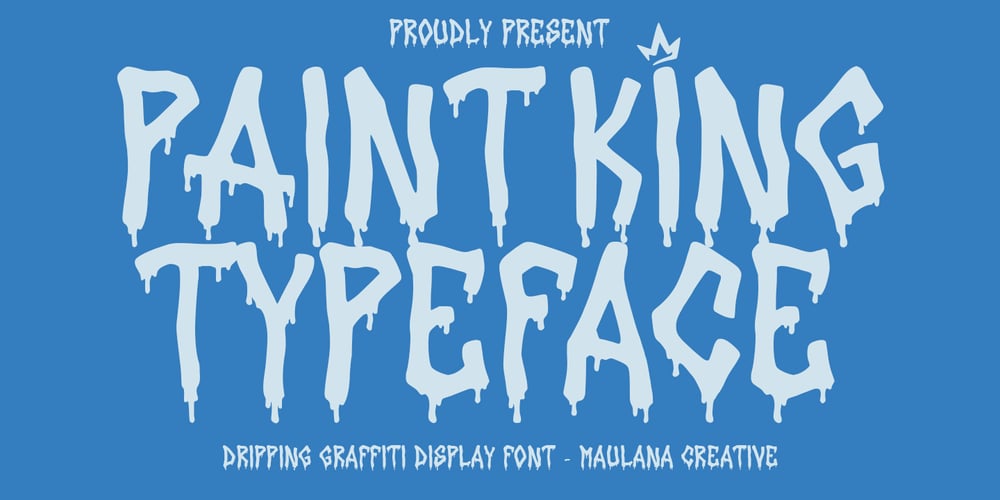
MC Paint King Font Family was designed by Gilang Maulana and published by Maulana Creative. MC Paint King contains 1 styles and family package options. Paint King dripping graffiti display font. Heavy stroke, fun character with a bit of ligatures. To give you an extra creative work. Paint King dripping graffiti display font support multilingual more than 100+ language. This font is good for logo design, Social media, Movie Titles, Books Titles, a short text even a long text letter and good for your secondary text font with script or serif. Make a stunning work with Paint King dripping graffiti display font. Cheers, Maulana Creative